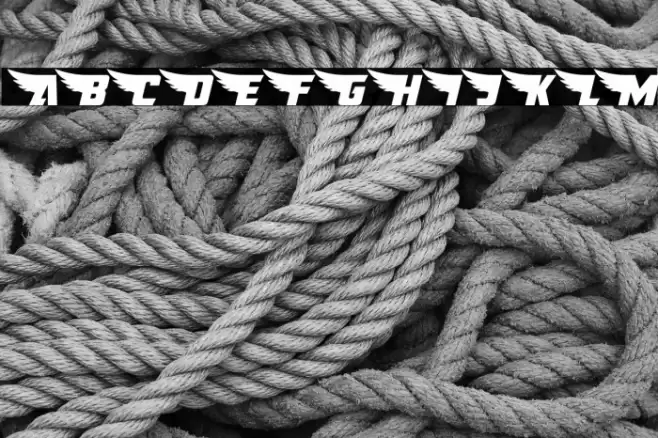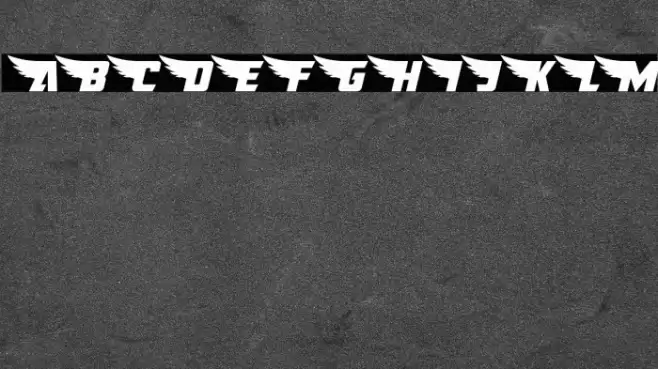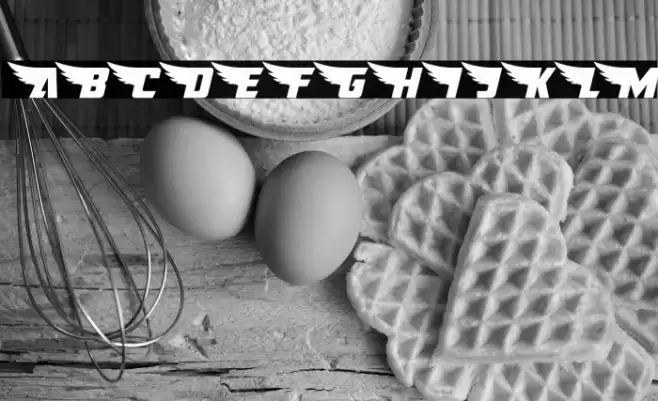
American Kestrel Semi-Straight Font
American Kestrel Semi-Straight Description
This font features a bold and dynamic design with a strong emphasis on angular shapes and sharp edges. The uppercase letters are particularly striking, with a unique wing-like extension on the left side of each character, giving it a sense of movement and speed. The lowercase letters maintain the boldness but are more streamlined, making them suitable for a variety of uses. The numbers are consistent with the overall style, offering a cohesive look across all characters. Special characters are designed to match the bold and angular aesthetic, ensuring uniformity throughout. This font is ideal for projects that require a strong visual impact and a modern, edgy feel.
A bold, angular font with dynamic wing-like extensions on uppercase letters from Uncategorized fonts.
- Font: American Kestrel Semi-Straight
- Proposed Projects: Ideal for sports branding, automotive designs, and dynamic advertising campaigns.